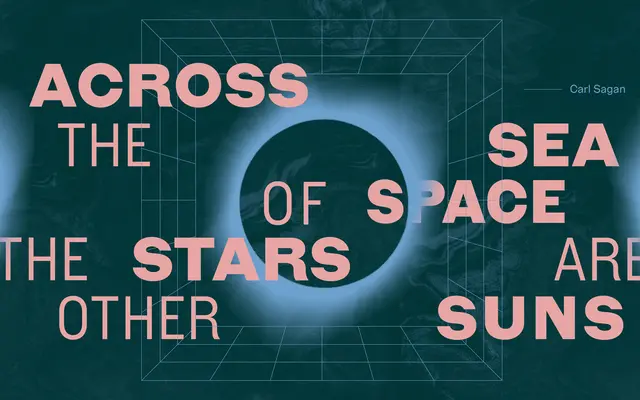
Figure
Fort Foundry · Brian Brubaker, Mattox Shuler
A 40-style sans-serif family rooted in 19th-century gothic wood type, spanning four widths from Condensed to Extended.
Designed by Brian Brubaker and Mattox Shuler, Figure draws on the idiosyncrasies of 19th-century American gothic wood type to produce a sans with genuine warmth and character. Forty styles spread across Condensed, Narrow, Standard and Extended widths, each running from Regular to Heavy with matching italics. The breadth of the family makes it adaptable across display and text settings without losing the quirk that distinguishes it from purely neutral grotesques.
Rooted in 19th-century gothic wood type traditions, Figure is a sans-serif with grotesque characteristics, offering warmth and quirk derived from historical American display type.